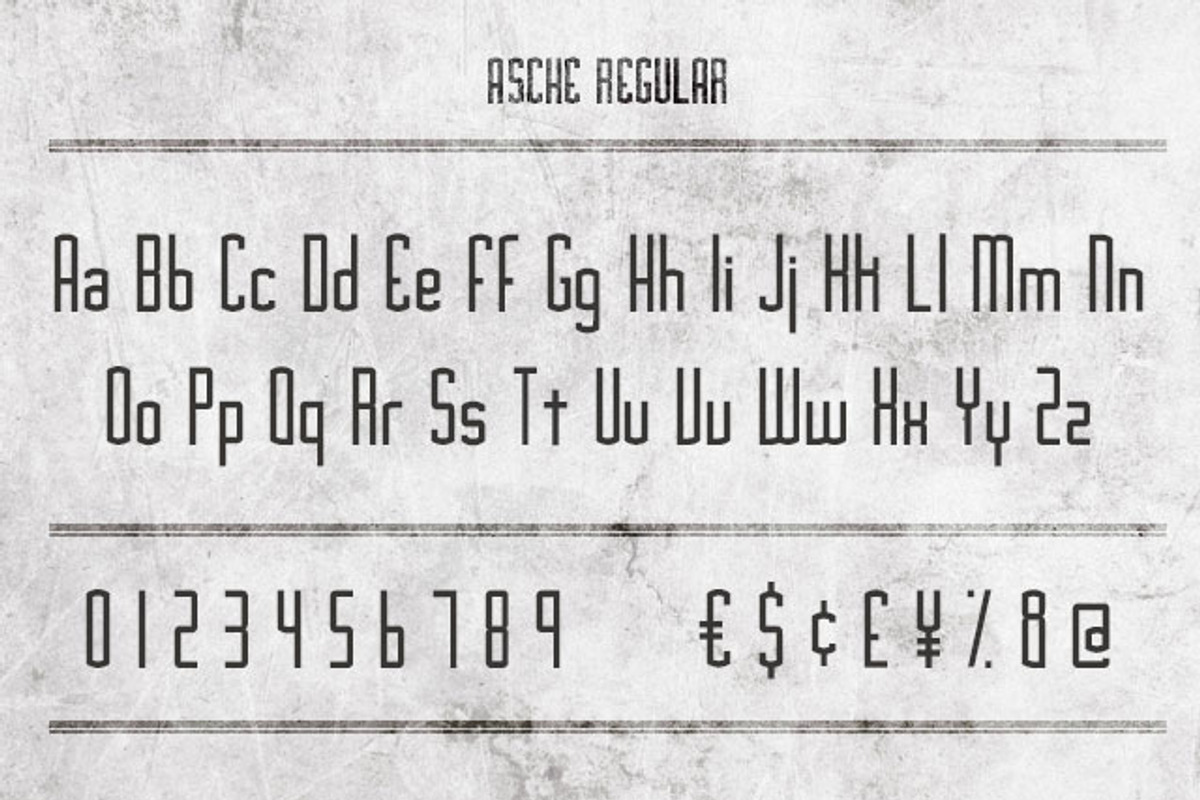
Asche Font
Asche Font by Medialoot is a font selected for branding, posters, packaging, typography.
- It includes all common glyphs including lower and uppercase characters, numbers and symbols.
Why Asche Font is worth a look
Asche Font by Medialoot fits naturally into Branding, posters, packaging, typography.